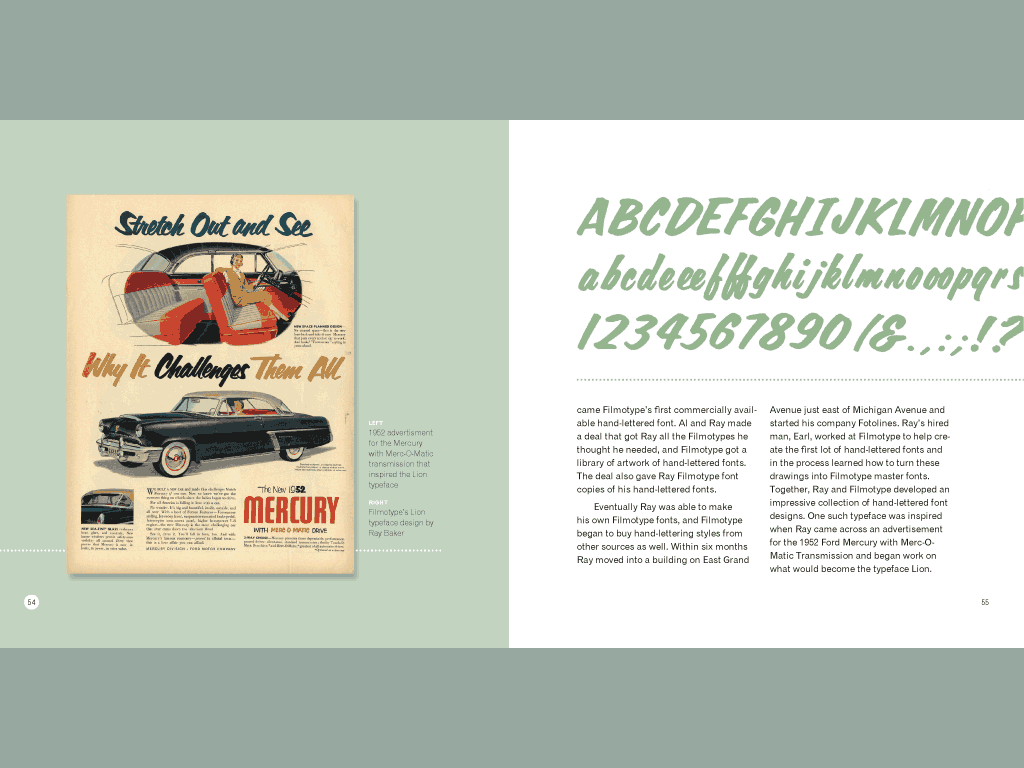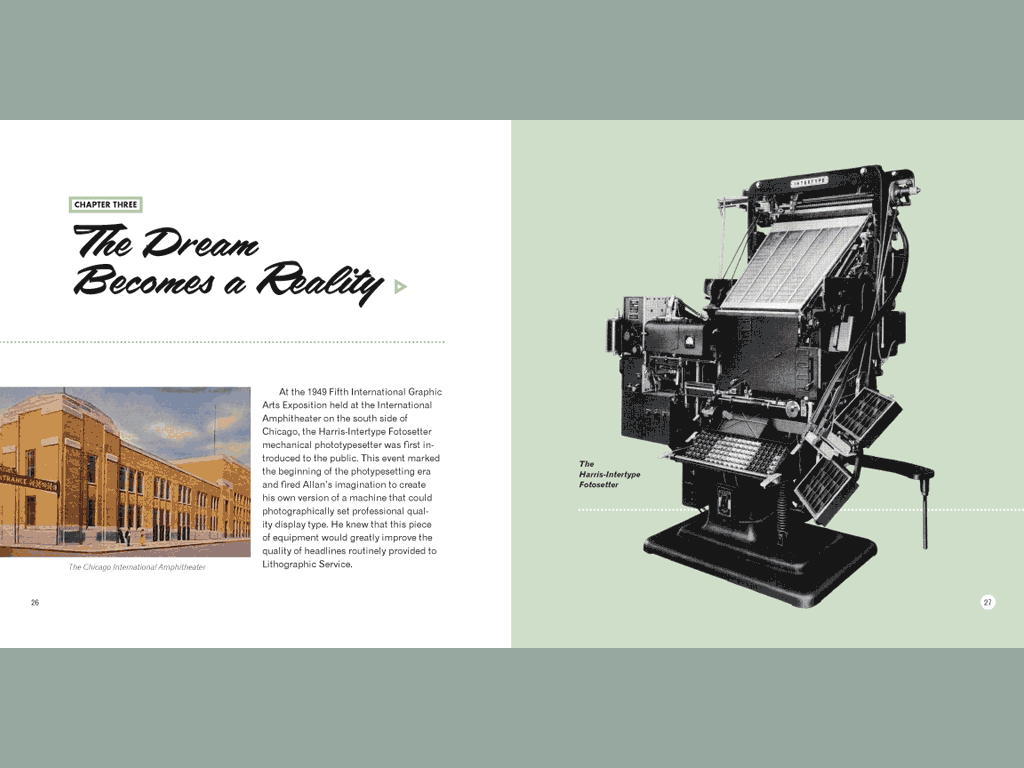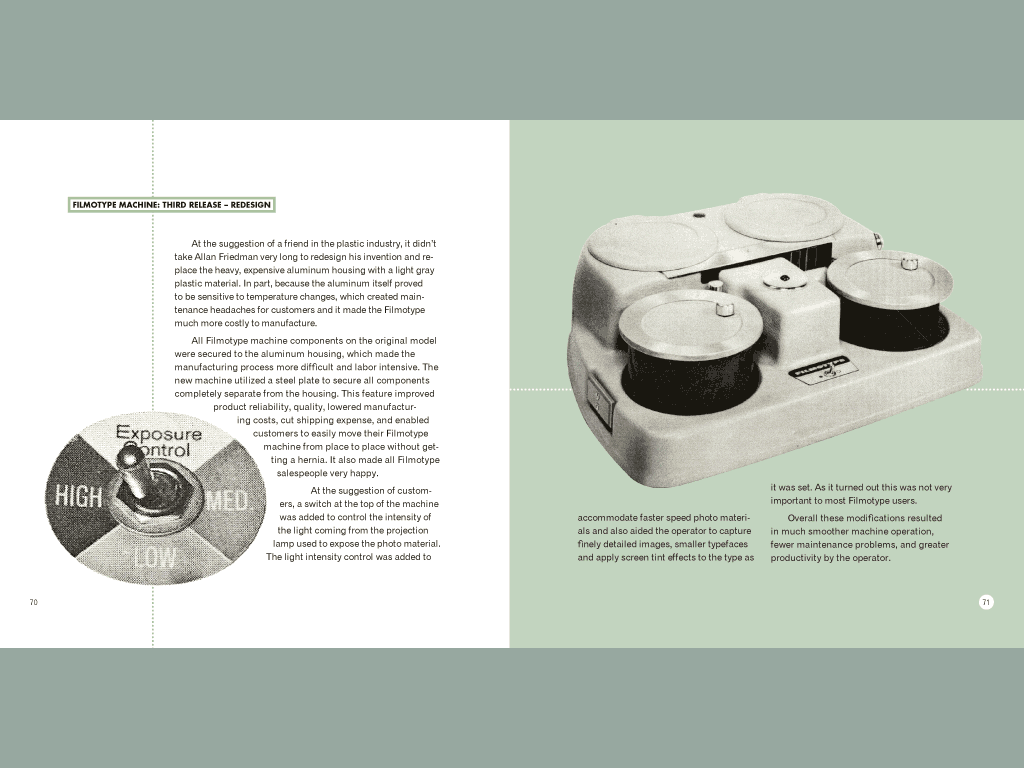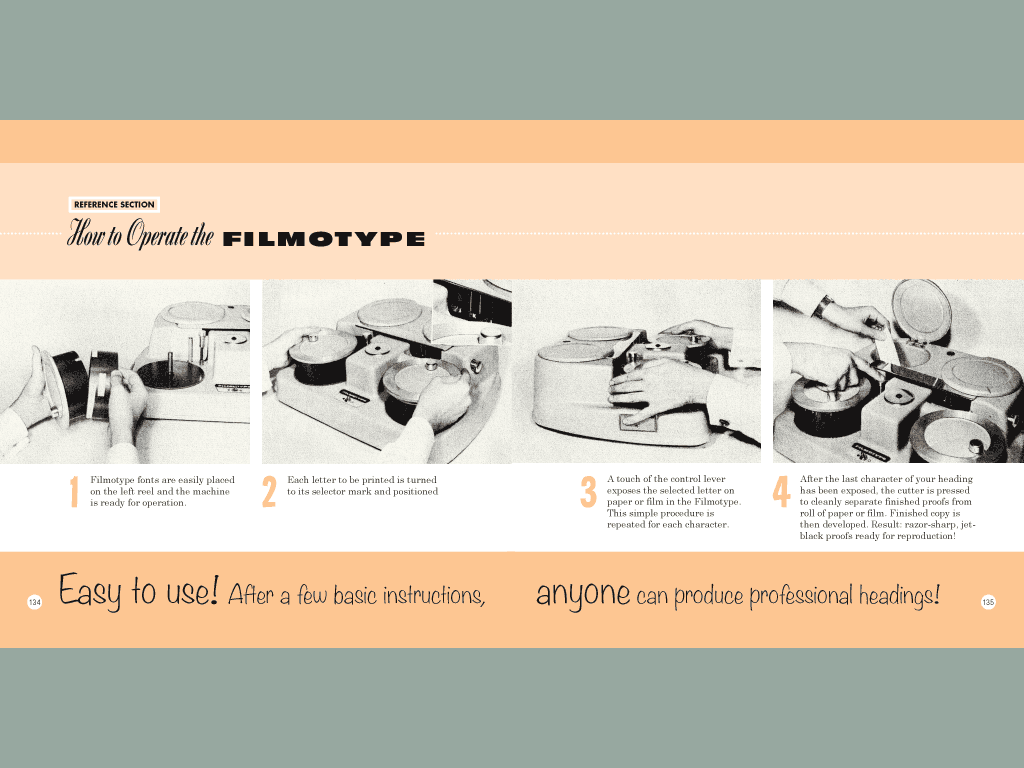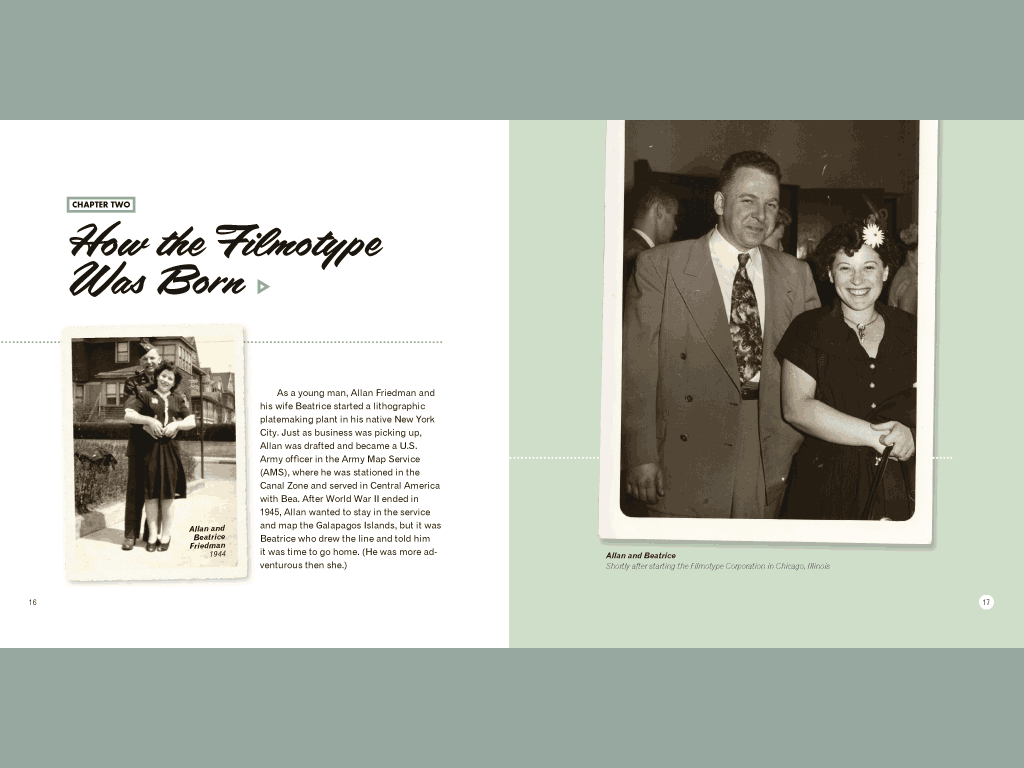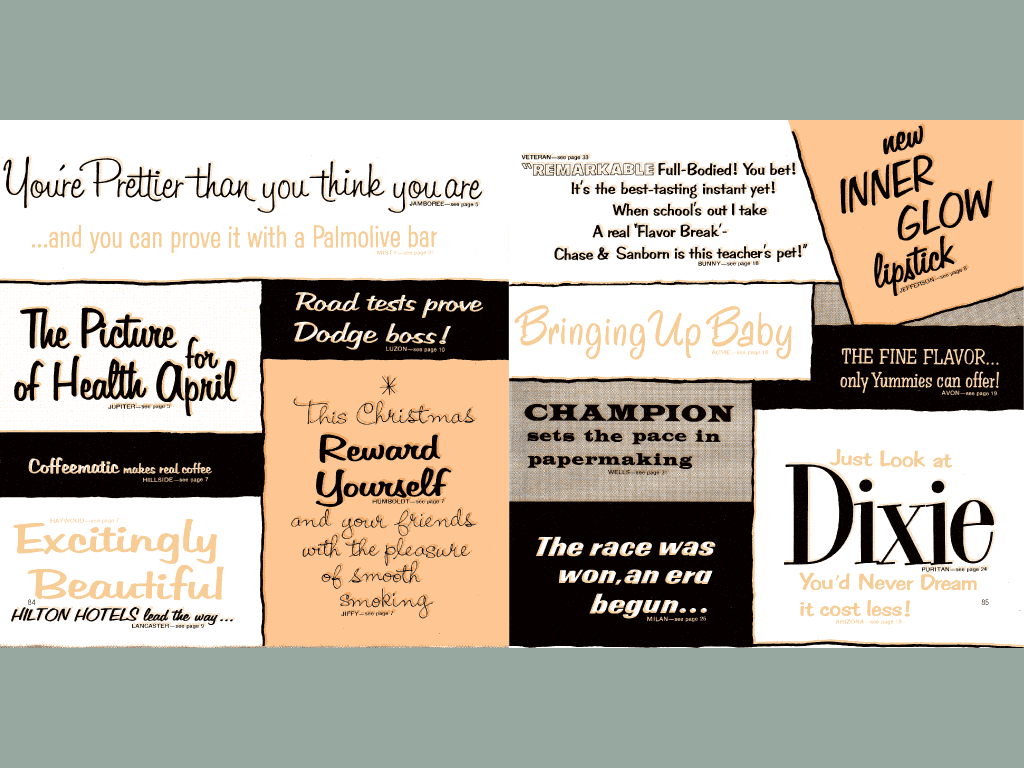
Filmotype Book
During its life, Filmotype and it's inventor Alan Friedman with his wife Beatrice pioneered the first portable typesetting system complete with an easy to use typesetting machine and an exhaustive library of display typefaces that were created for it (Filmotype was the creator of the 2" filmstrip photo font).
By random chance and months of exhaustive research, a man by the name of Don Hase, Filmotype's first employee, opened our eyes to the great history of this amazing little company that went on to later become Alphatype before it's demise in the late 1990s only to be reborn in 2006 by Stuart Sandler of the Font Diner. Come along on this fascinating journey to learn the history and the future of this historic preservation effort.